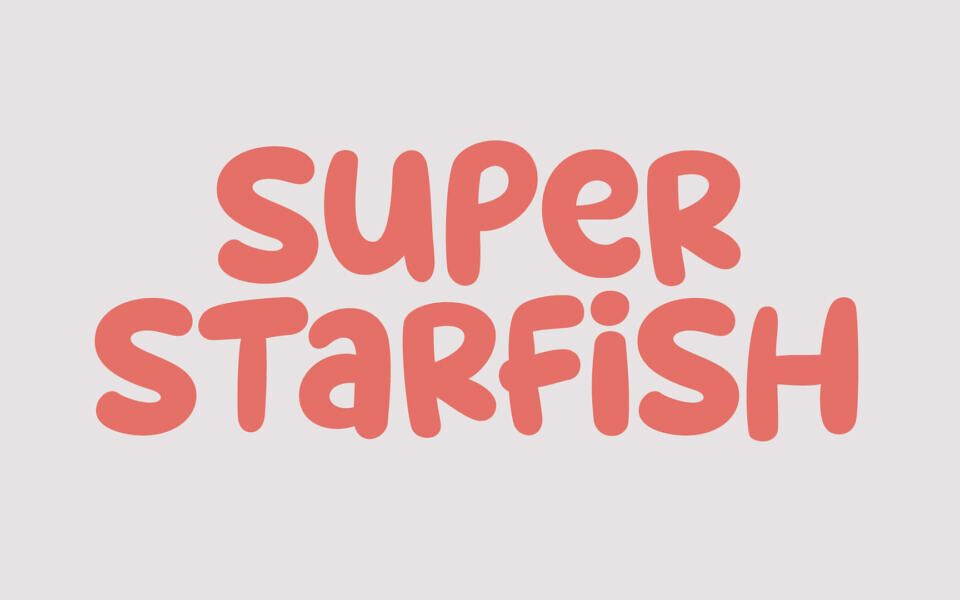
Super Starfish is a playful, cartoon-style font with bold, rounded shapes and a friendly, whimsical personality. Its soft curves and exaggerated letterforms give it a fun, youthful feel, making it ideal for children’s designs, logos, posters, and creative projects.
With a clean yet expressive look, it balances readability and charm, while supporting a wide range of characters. The font is free for both personal and commercial use.